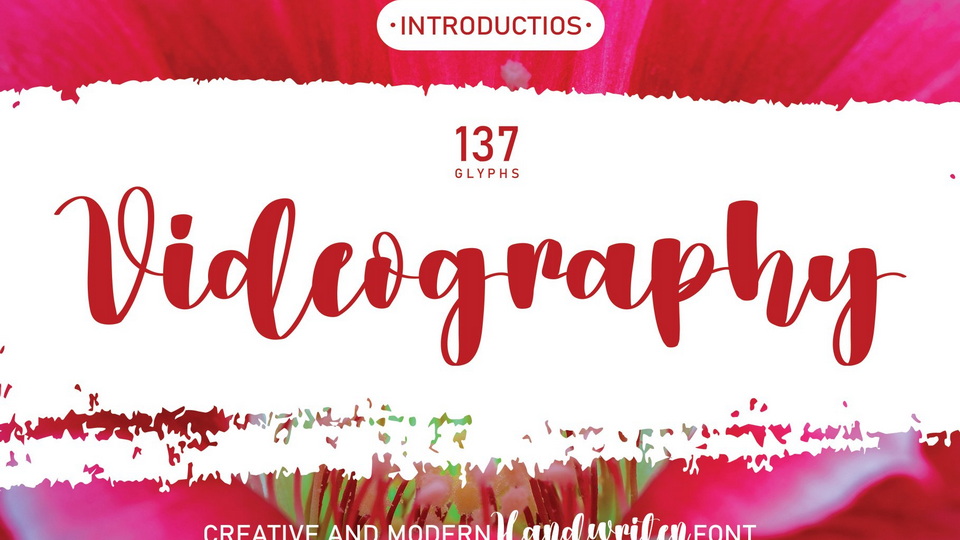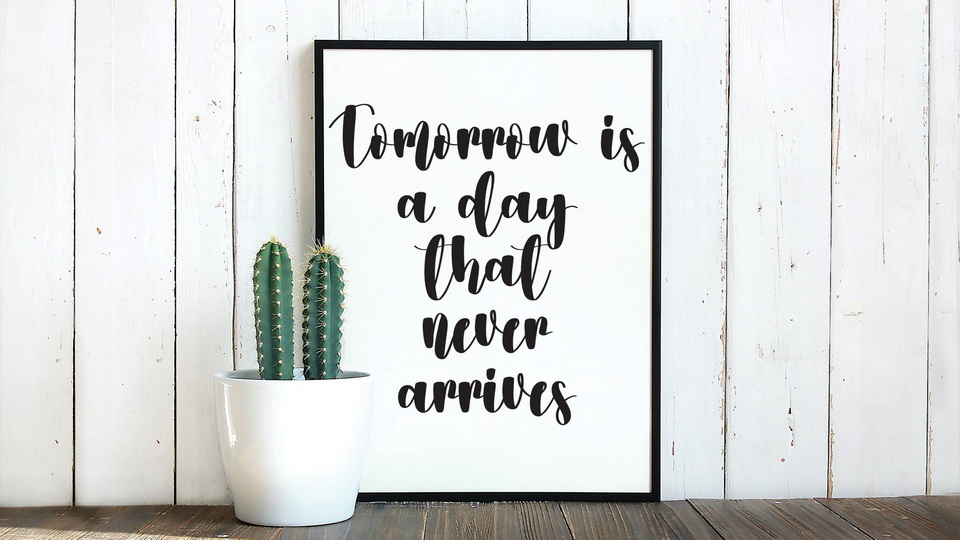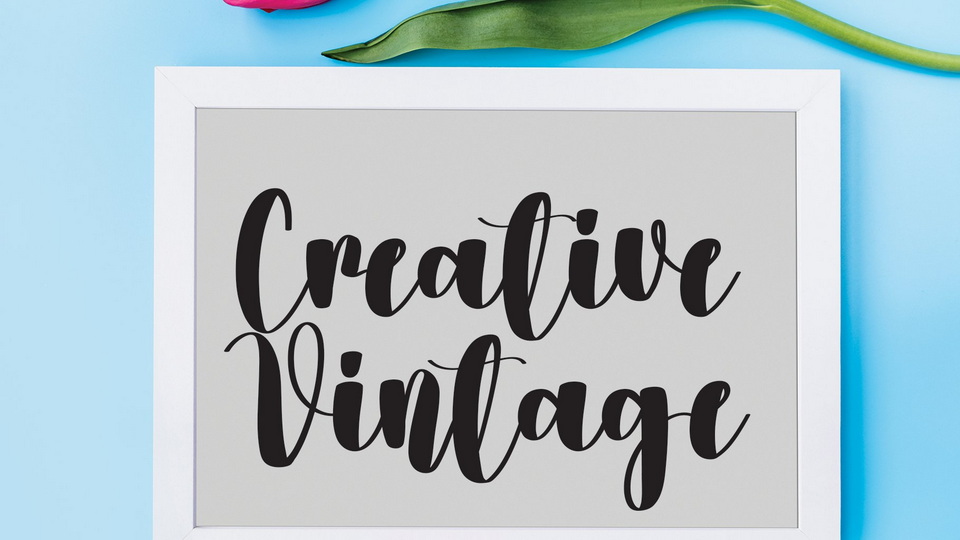
Videography is a playful hand painted brush font made of beautiful creative strokes. This font is perfect for your creative ideas, both formal and informal.
Videography font is perfect for wall displays, wedding invitations, social media post logos, advertisements, product packaging, labels, photography, watermarks, invitations, stationery, and any project that requires taste handwriting.